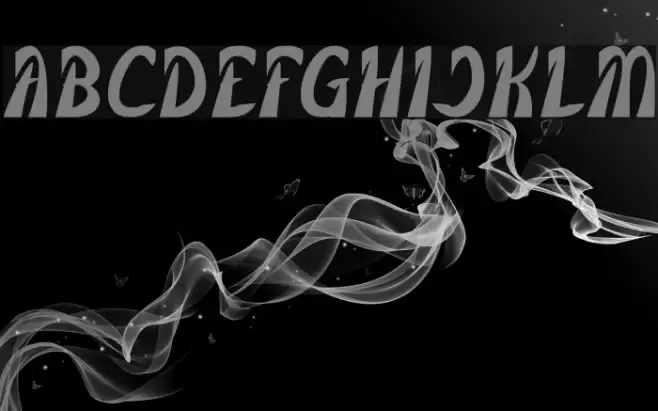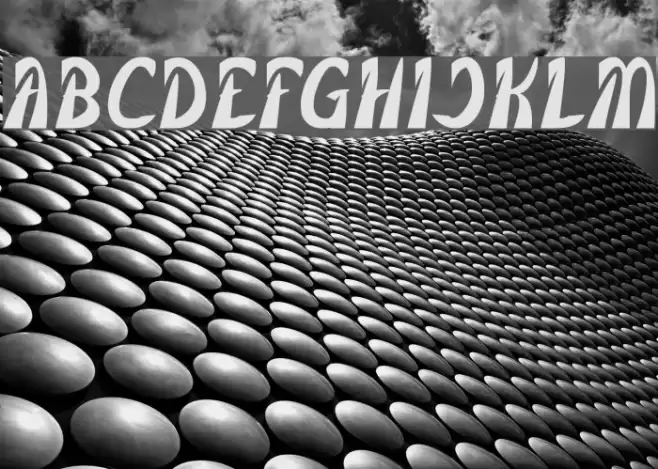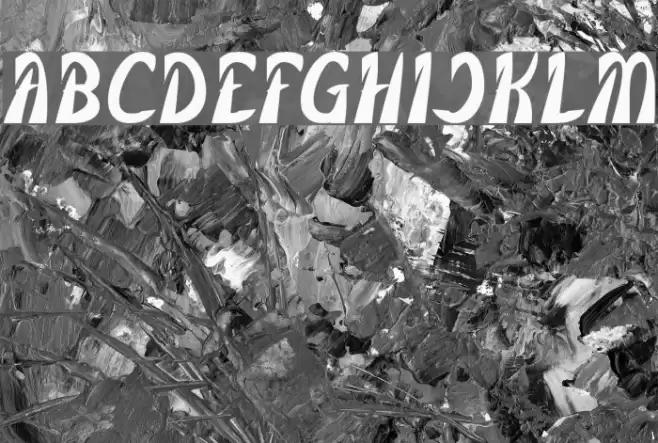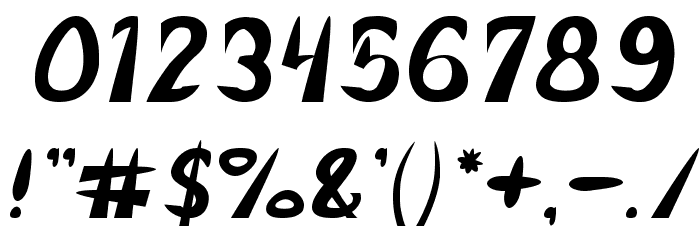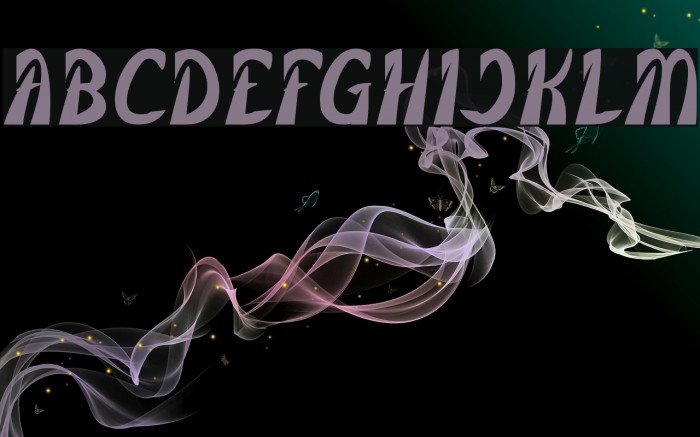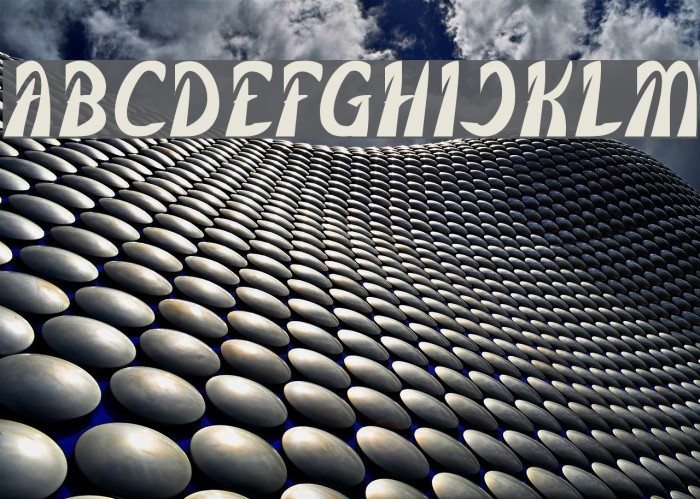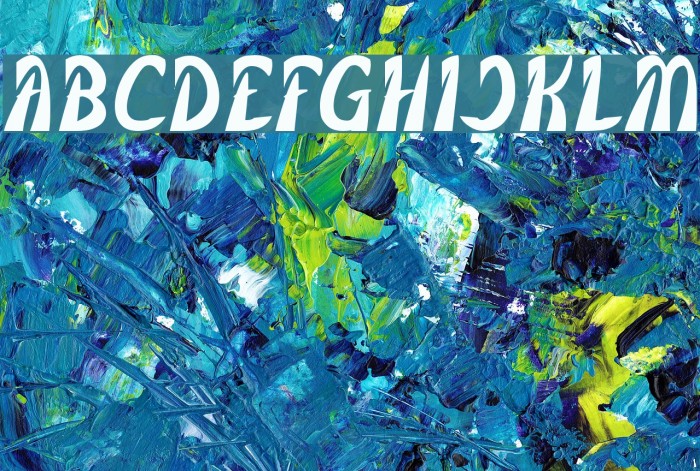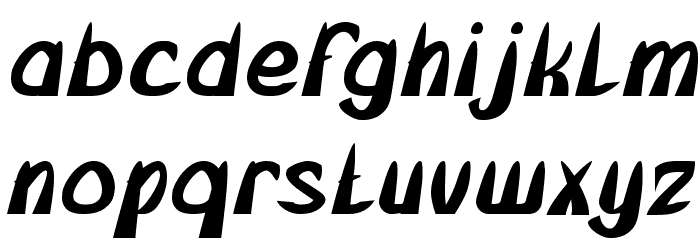
FROZEN ICE-Light Font
FROZEN ICE-Light Description
This font features a playful and dynamic style, characterized by its bold and slightly slanted letterforms. The uppercase letters exhibit a unique flair with varying stroke widths, giving them a lively and energetic appearance. The lowercase letters maintain this playful aesthetic, with rounded edges and a consistent flow. The numerals are bold and easily readable, complementing the overall style. Special characters are designed with the same attention to detail, ensuring they fit seamlessly with the rest of the font. This font's distinctive style makes it suitable for projects that require a fun and engaging visual impact.
A playful and dynamic font with bold, slanted letterforms and a lively appearance from Uncategorized fonts.
- Proposed Projects: Ideal for children's books, playful branding, event posters, and creative advertising.
- Overall Style: Playful, Energetic